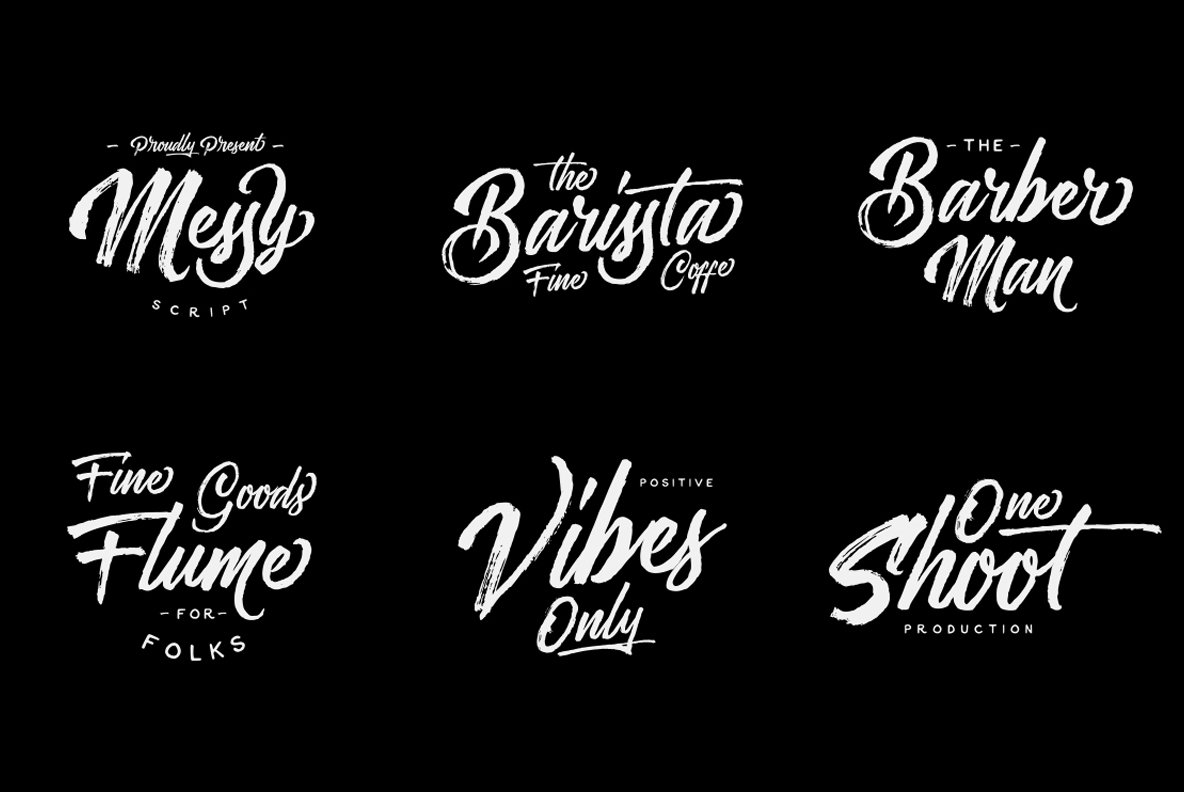
Famous Messy Fonts Ideas
Famous Messy Fonts Ideas. Like we said, you can use it anywhere! This font is handwritten font.
Boredom Messy Scribble Font (Otf, Ttf, Woff) Boredom Offers The Raw Simplicity Of Realistic Scribbles That Look Penned In, Scratched Off, And Written Over.